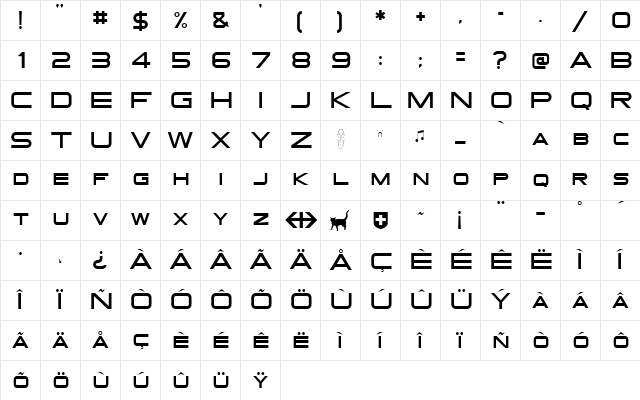
Gotthard Regular
Design Context for Gotthard
Gotthard is a composed and adaptable typeface that performs quietly and consistently across a wide range of design contexts.
Pro Tip: Use Gotthard in both headline and body roles to test its range before committing to a single application.